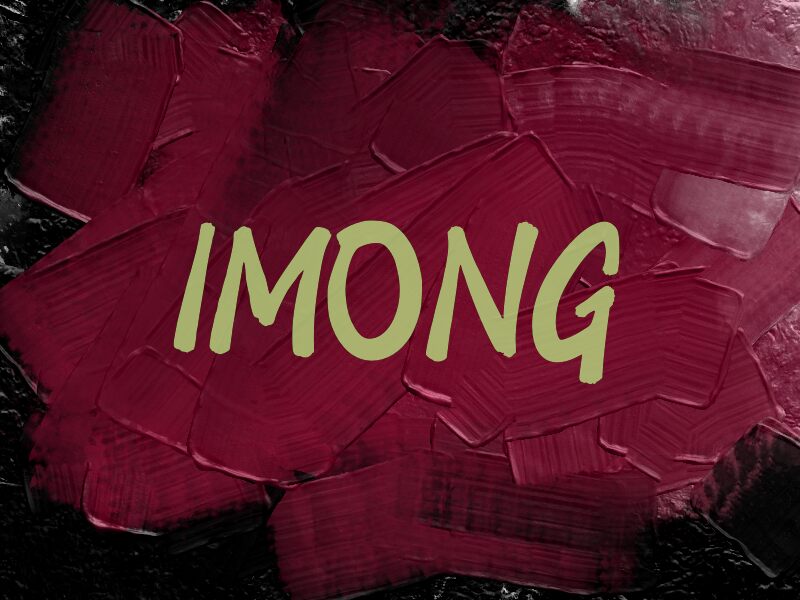
Imong
Imong font by wep is a comic display font with a casual elegance touch and smooth flowing letters. It accurately captures an expressive lively style in a friendly, playful manner that stays visible in all arrangements. Modern and carefully crafted, the Imong typeface will develop your text’s quality when making it the main attraction or combining it with other fonts.
With its exceptional touch, Imong will make for a great addition to website headlines, email designs, food packaging labels, stationery designs, social media posts’ photos and videos typography overlays. Grab your free copy to use it also for branding design concepts and marketing materials like flyers or brochures!